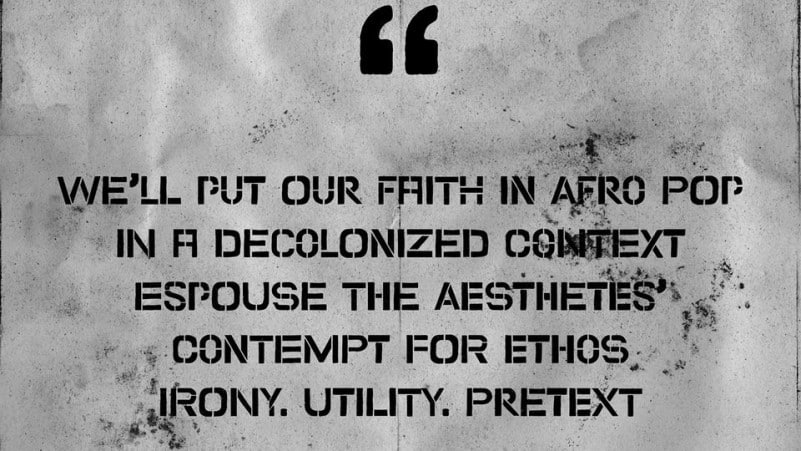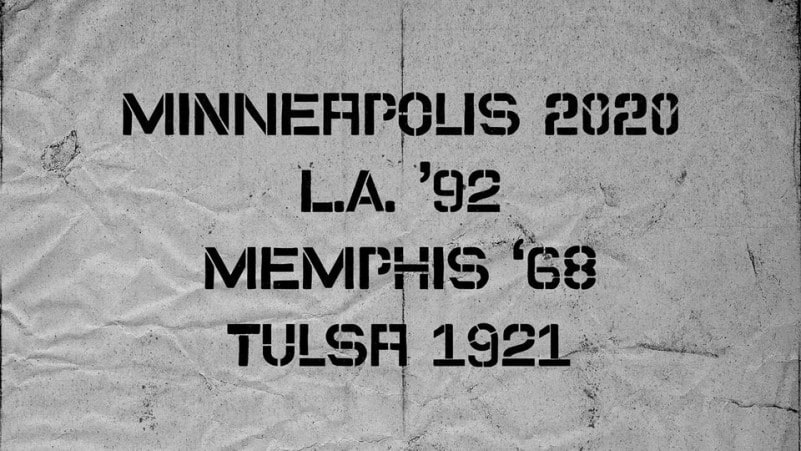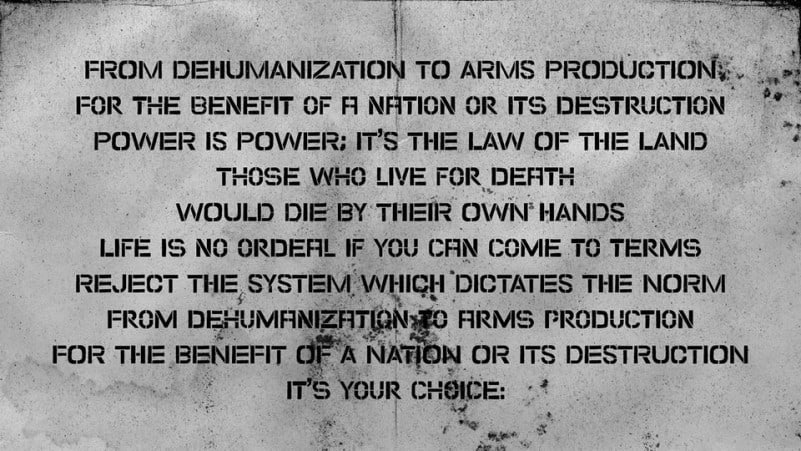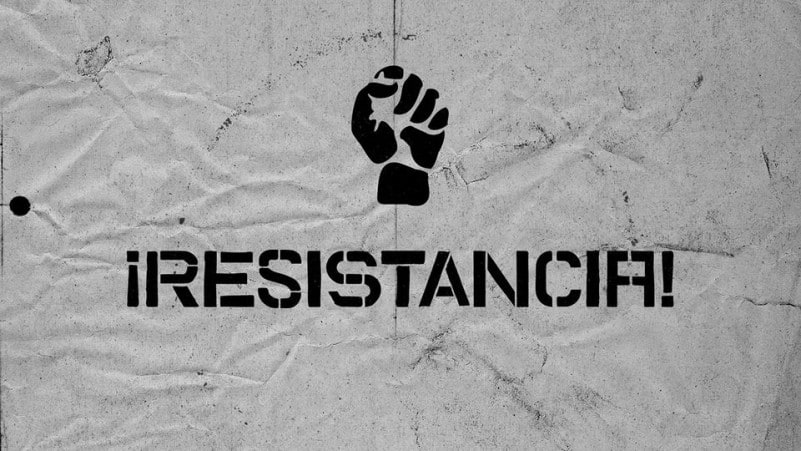
Refuse Display Font
Refuse Display Font is a modern display font with a sporty and adventurous feel to it. This all caps font can give a powerful touch to your unique designs. Made from font designer named Rafael Nascimento. a free font inspired by the challenges and contradictions of our times. The font can and should be used as a matrix for large size stencils – preferably as a resistance tool. The typographic work is a constant exercise in proposing new forms of reflection, distribution and access. The author notes that typography can stimulate diversity and give voice to those who are being silenced and oppressed, during these difficult times, offering yet another weapon to the fight.